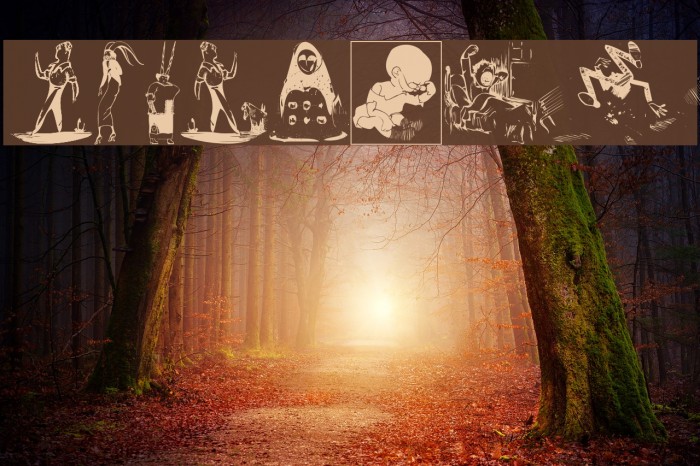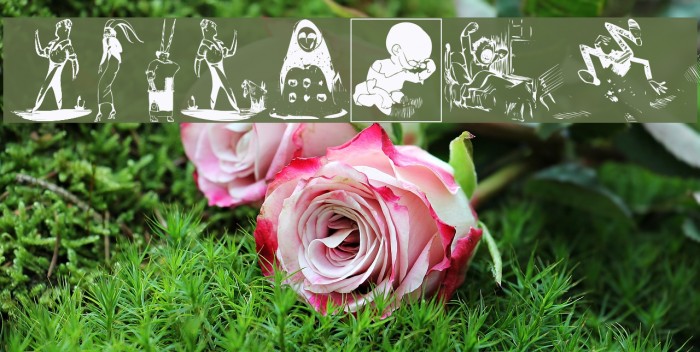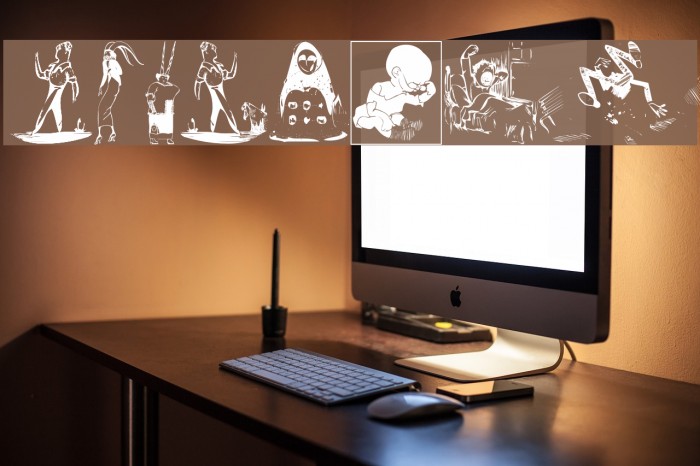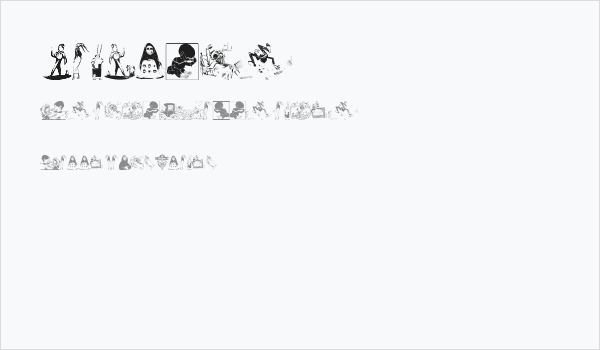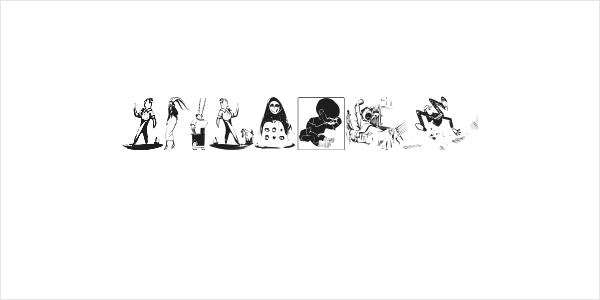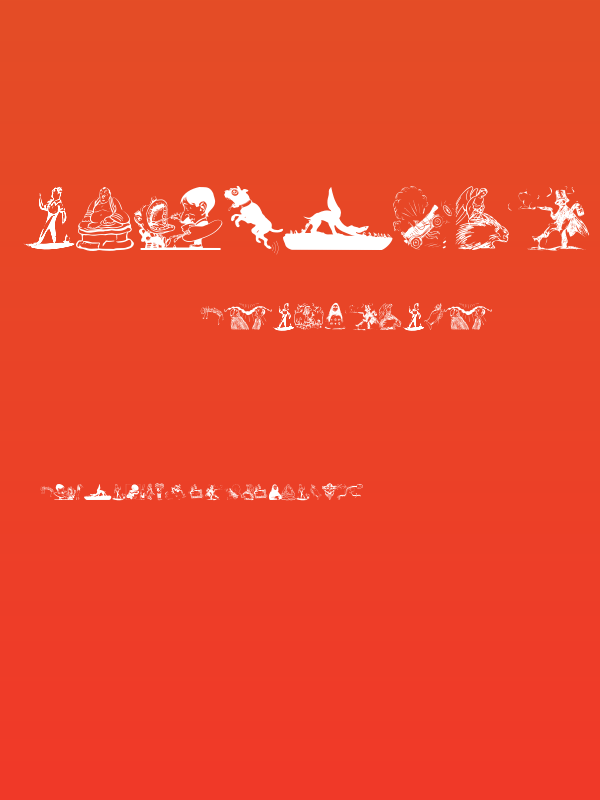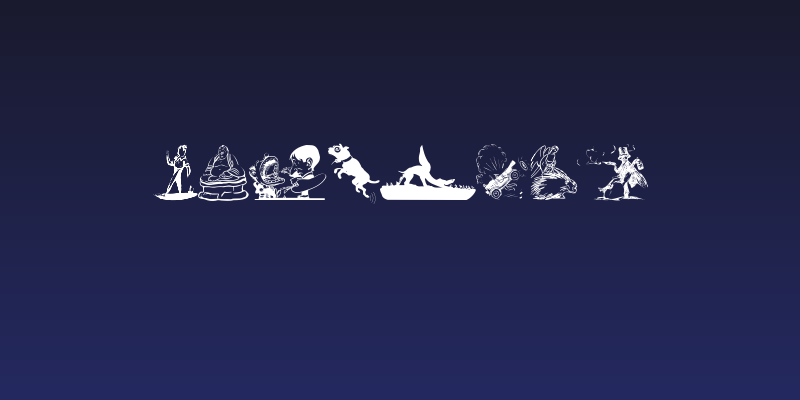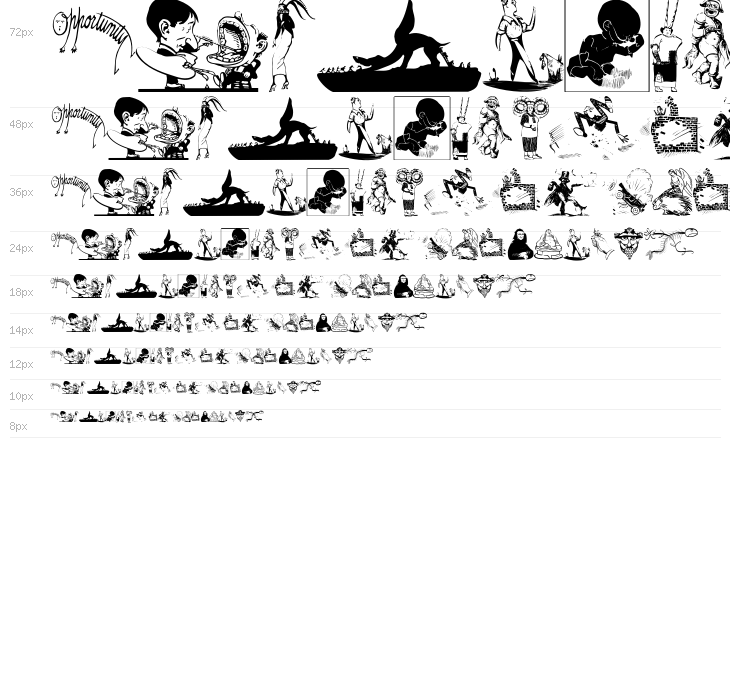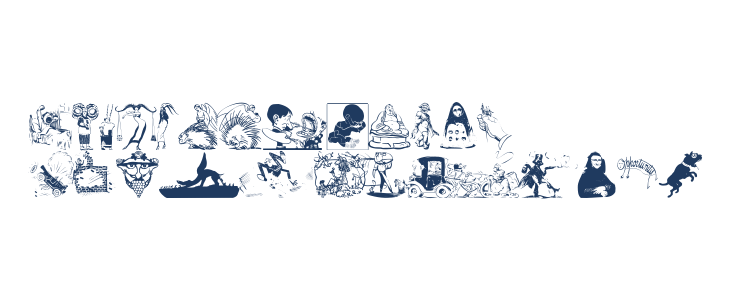
Peculiar Font
Peculiar Description
A highly decorative and illustrative typeface composed entirely of whimsical, detailed cartoon drawings and character scenes instead of traditional letterforms, resulting in a playful and narrative-driven visual style.
| Overall Style | Decorative, Whimsical, Playful |
| Use Case | Logos, Posters, Headlines, Themed event materials |
| Proposed Projects | Children's books, comic titles, party invitations, posters, creative branding, art projects. |